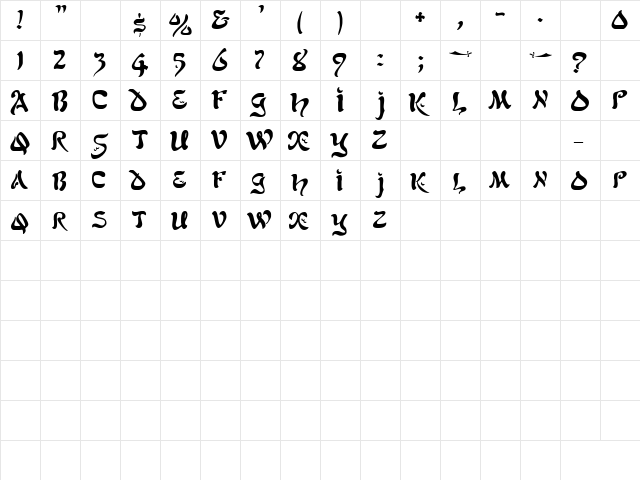
GE Scimscript Regular
Design Context for GE Scimscript Typeface
GE Scimscript flows with the natural rhythm of handwritten lettering, making it ideal for designs that call for warmth and personal expression.